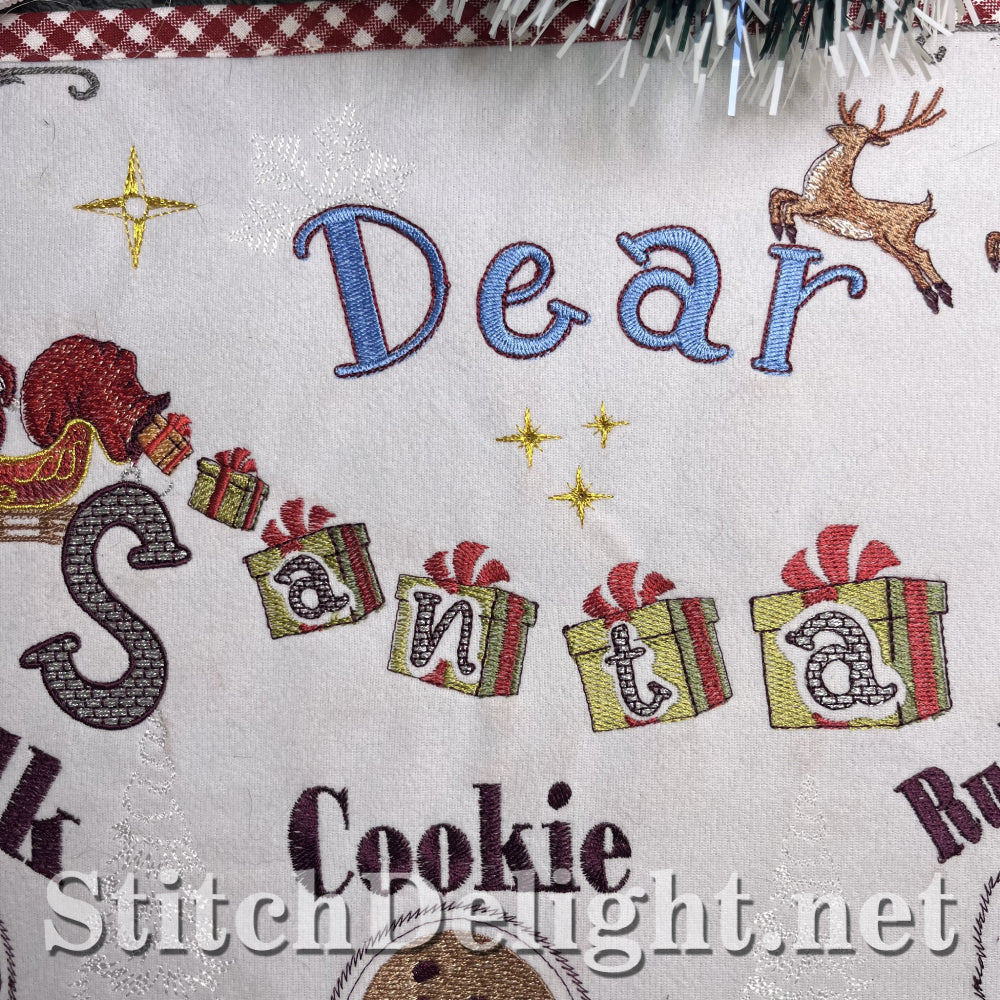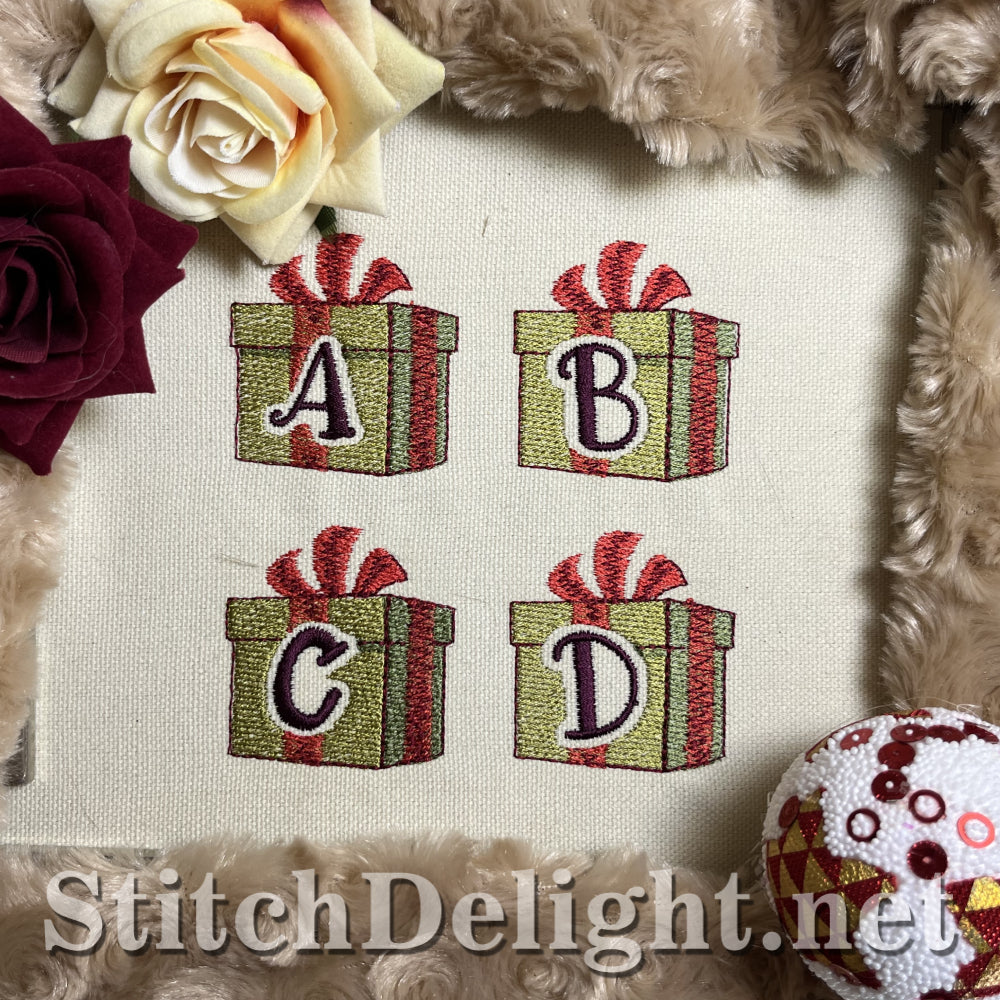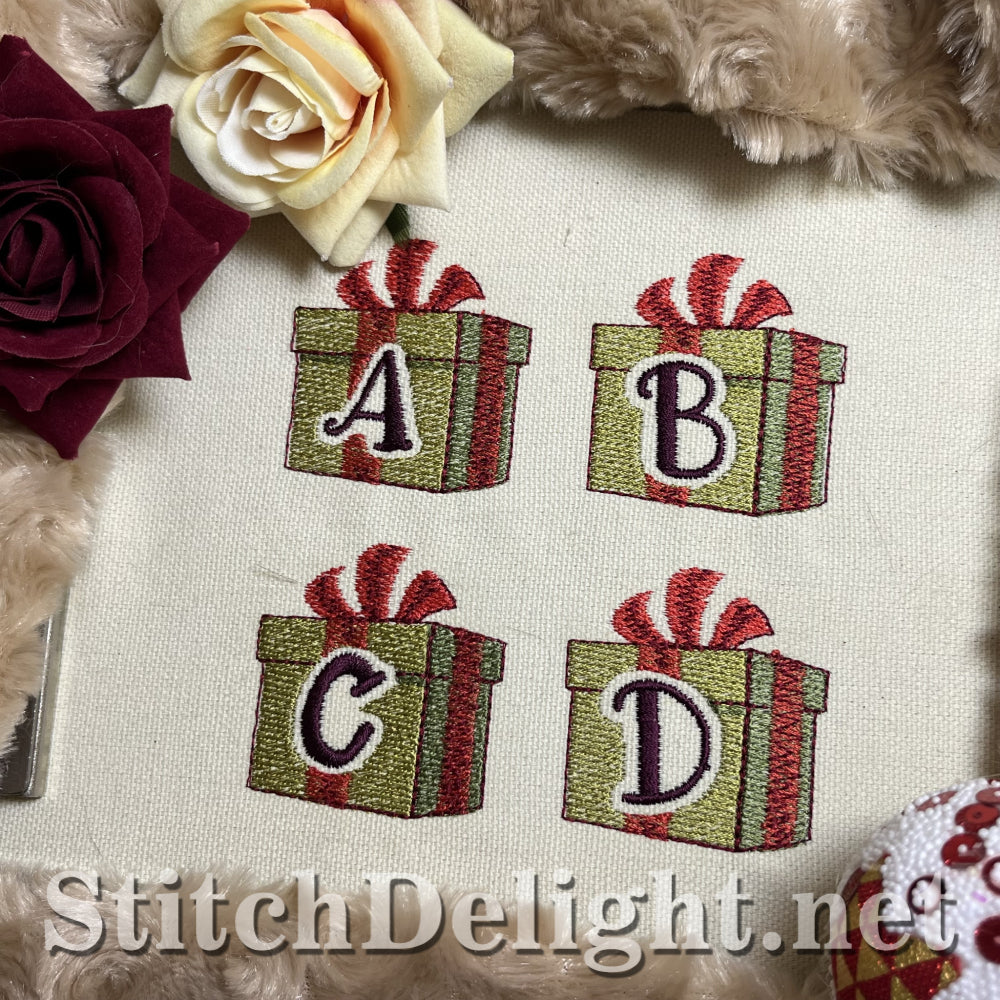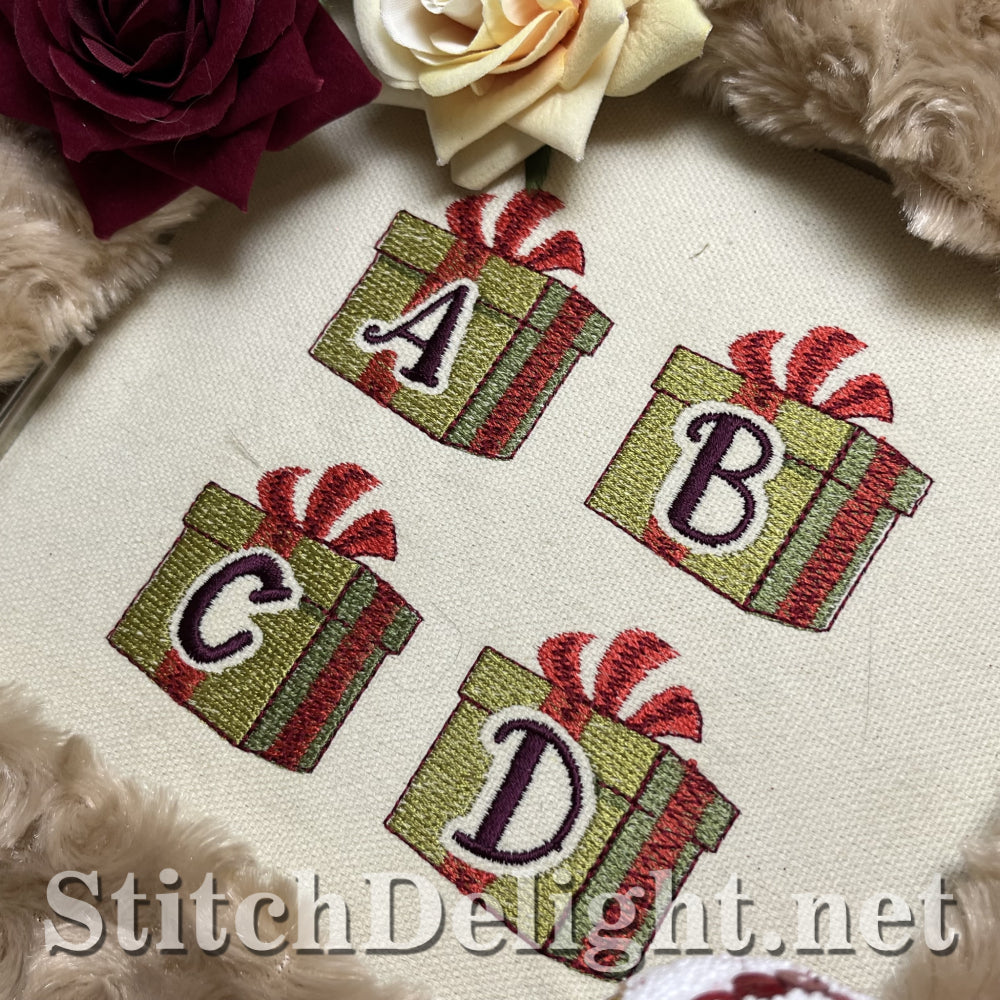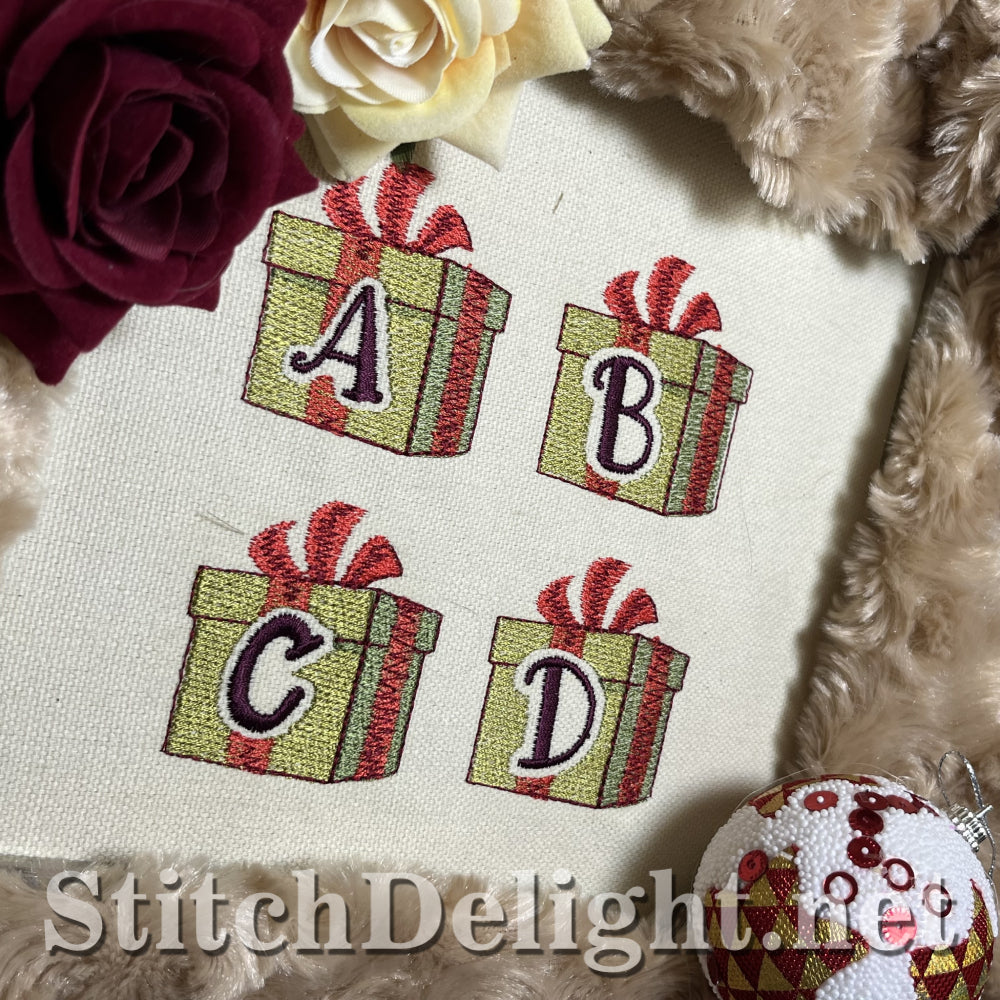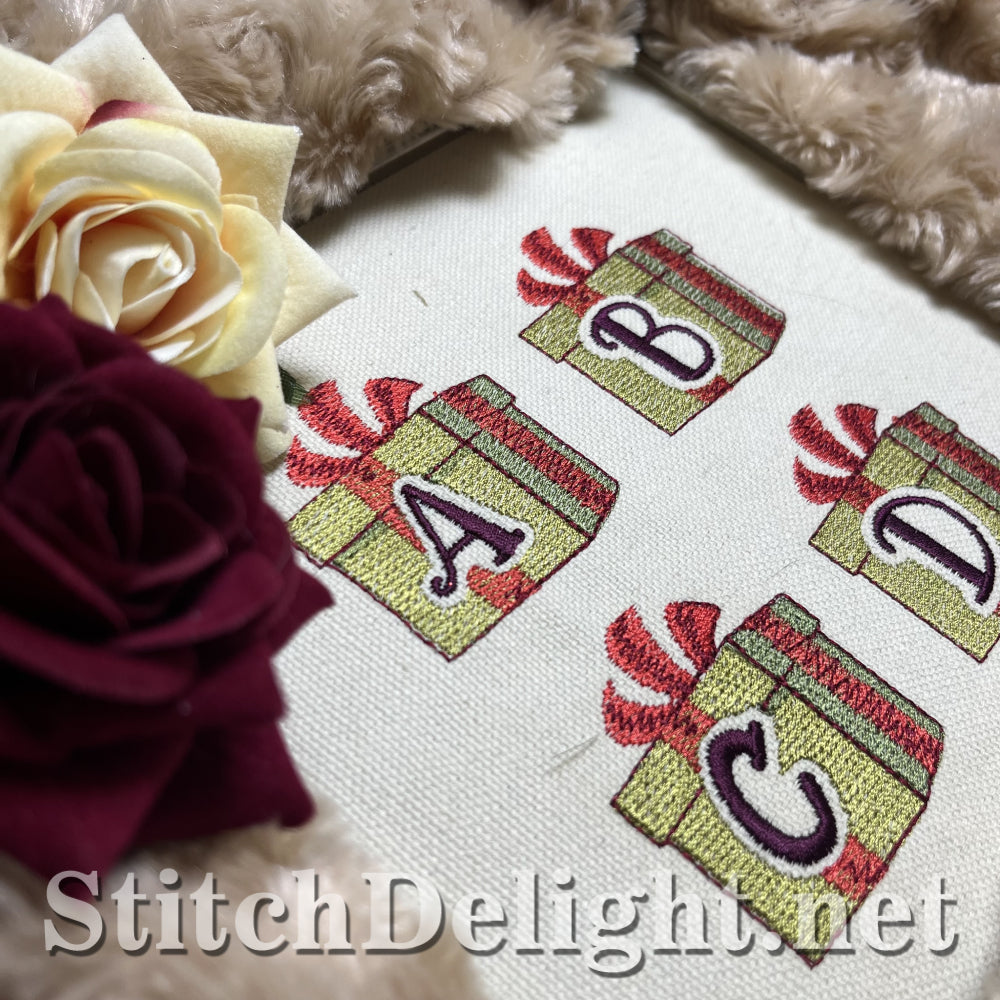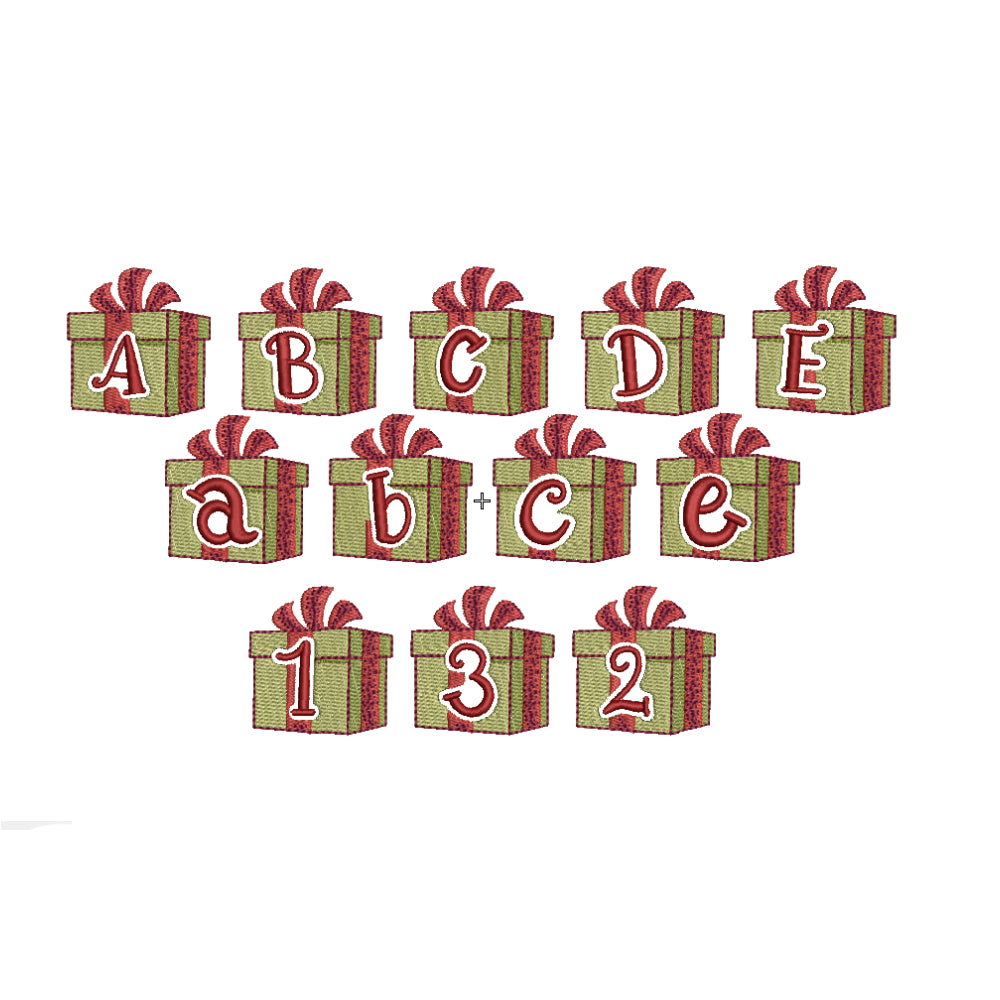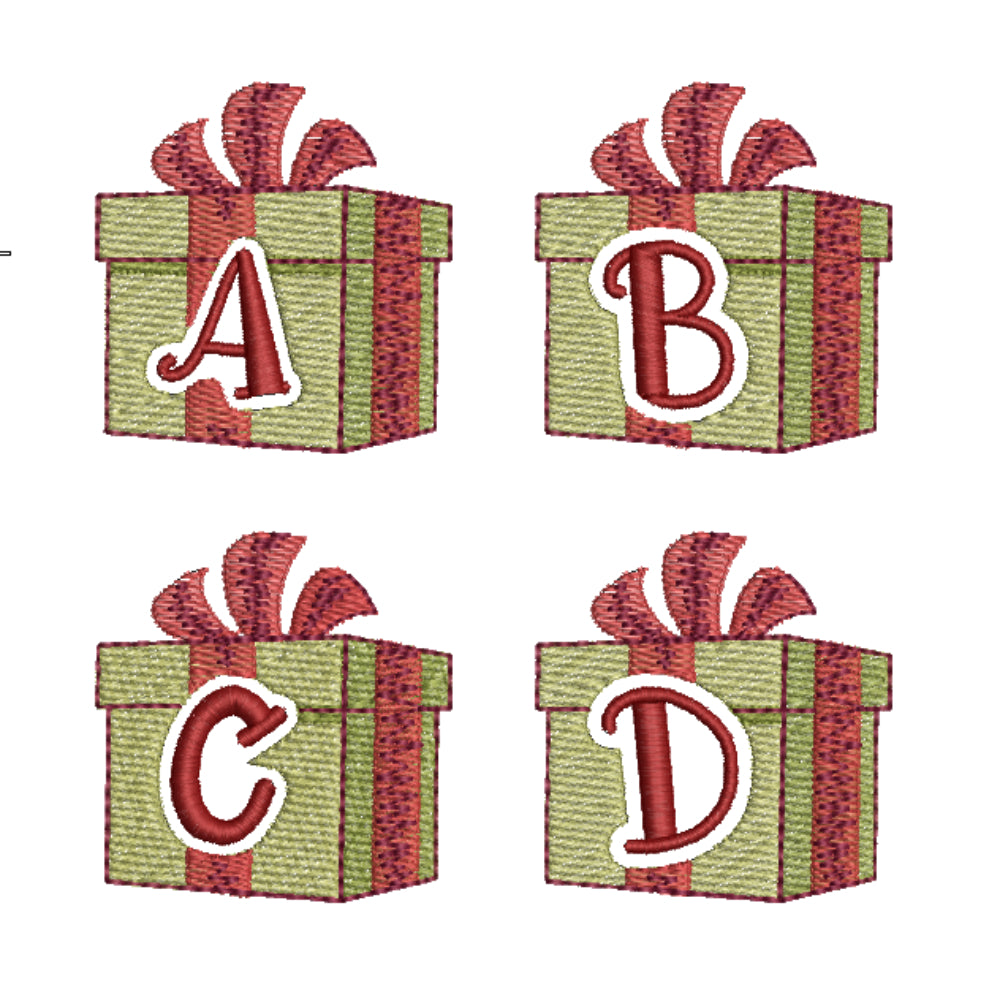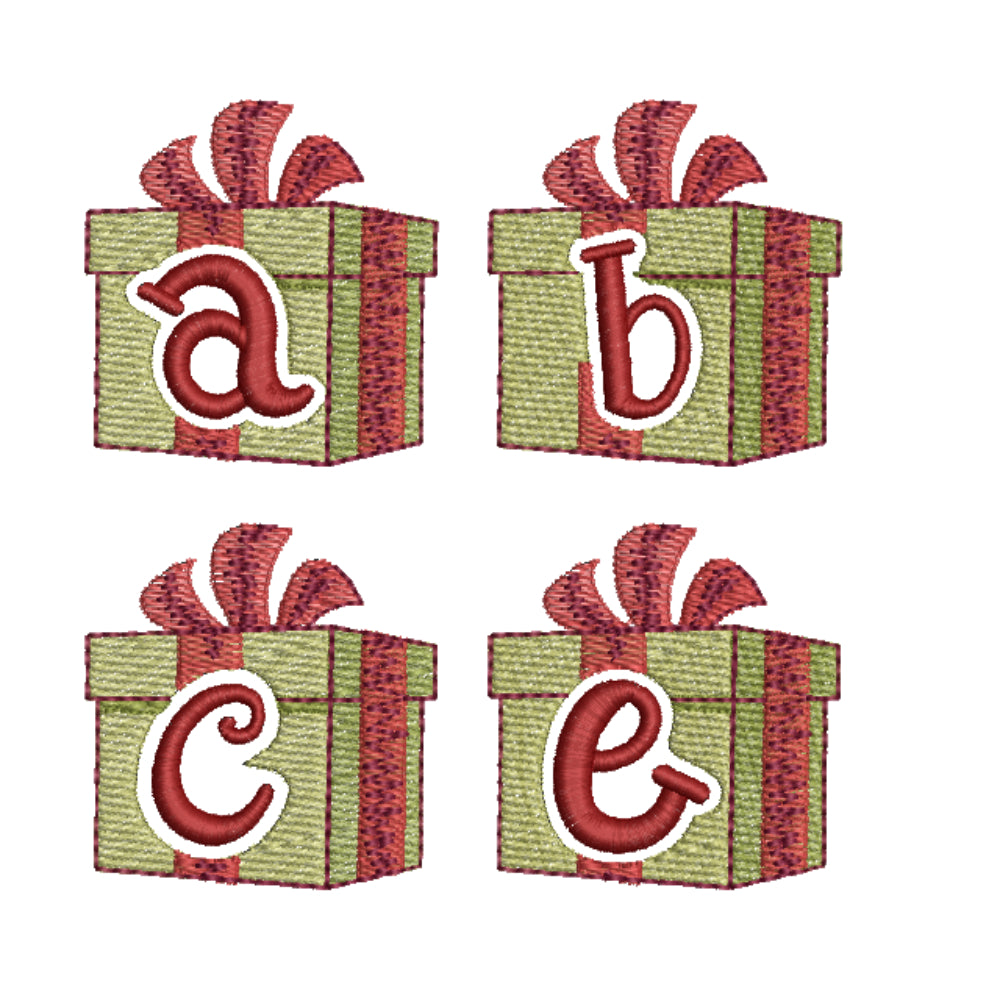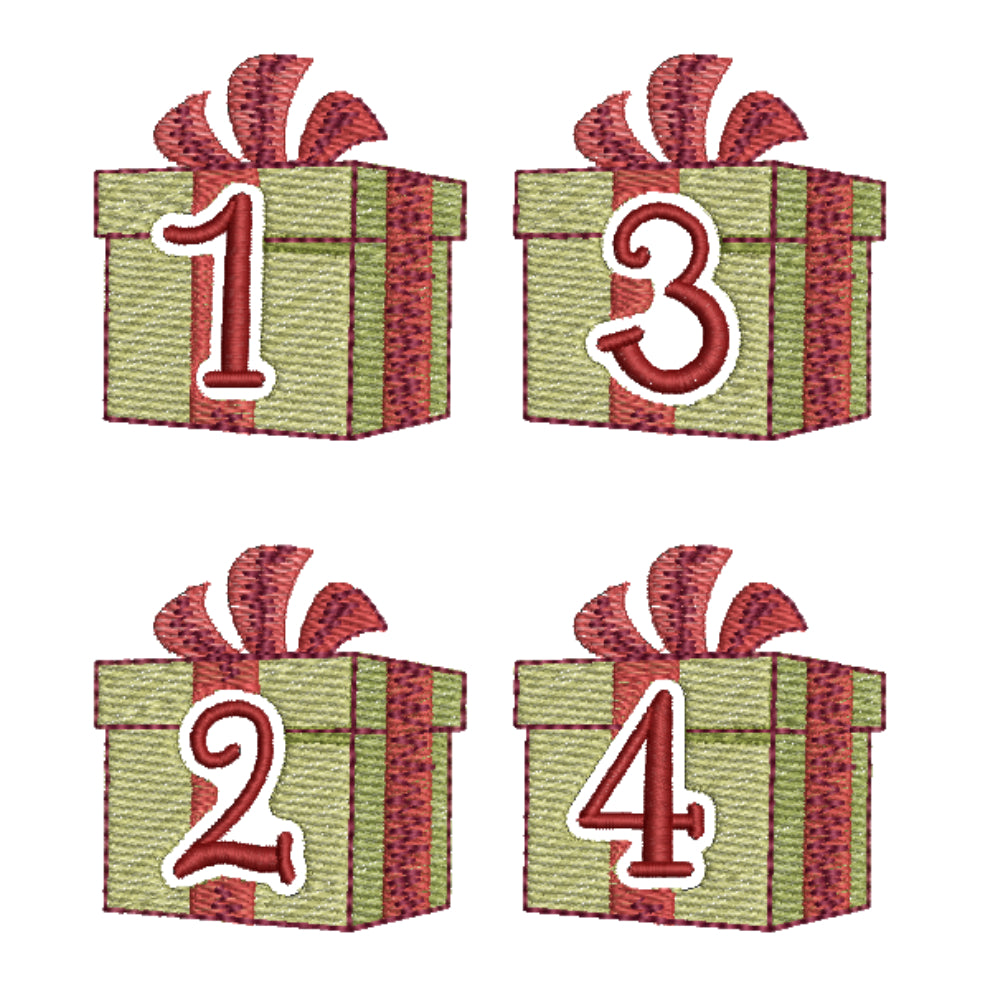
SDS3308 Santa's Gifts Font
Santa’s gifts Font straight from Santa's magical bag!
font size is around 1.8" wide x 2 " in height.
This font brings a joyful spirit to your projects! It can be used on its own to create fun and creative designs, or you can pair it with our Santa’s font (SDS3307) to give the impression of gifts spilling out of Santa's bag. With these two fonts, you can create something truly magical for Christmas! This font includes both uppercase and lowercase letters, making it perfect for any project. For your convenience, it also comes in BX format.